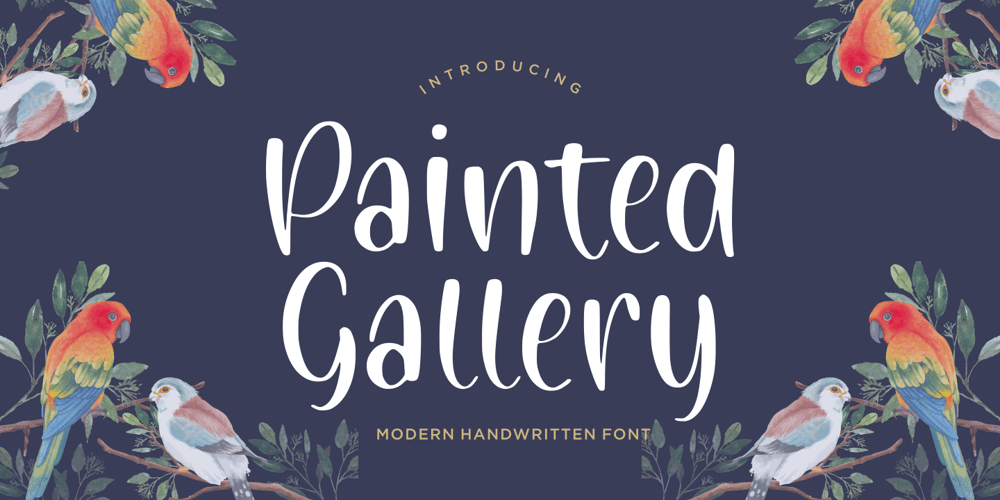
Painted Gallery Font Family was designed by Restu Angga and published by Balpirick. Painted Gallery contains 1 styles and family package options. Painted Gallery is a Modern Handwritten Font.Painted Gallery is a cute, friendly and trendy handwritten font. Add it confidently to your projects, and you won’t be disappointed.Painted Gallery also multilingual support.Enjoy the font, feel free to comment or feedback, send me PM or email.